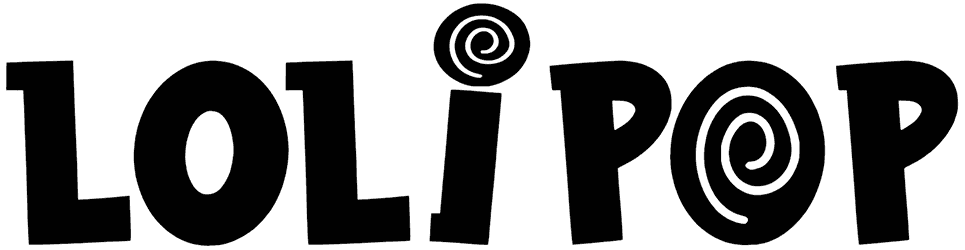
Loli Pop Font
Even though it does not have any lowercase letters, the attractive cartoon font known as Loli Pop is an excellent choice for a broad variety of fun artwork created for youngsters. It helps a lot with comic books, children’s books, movies, and other projects that are similar. Simply look through our digital library’s online catalog to locate more fonts that are comparable to this one.